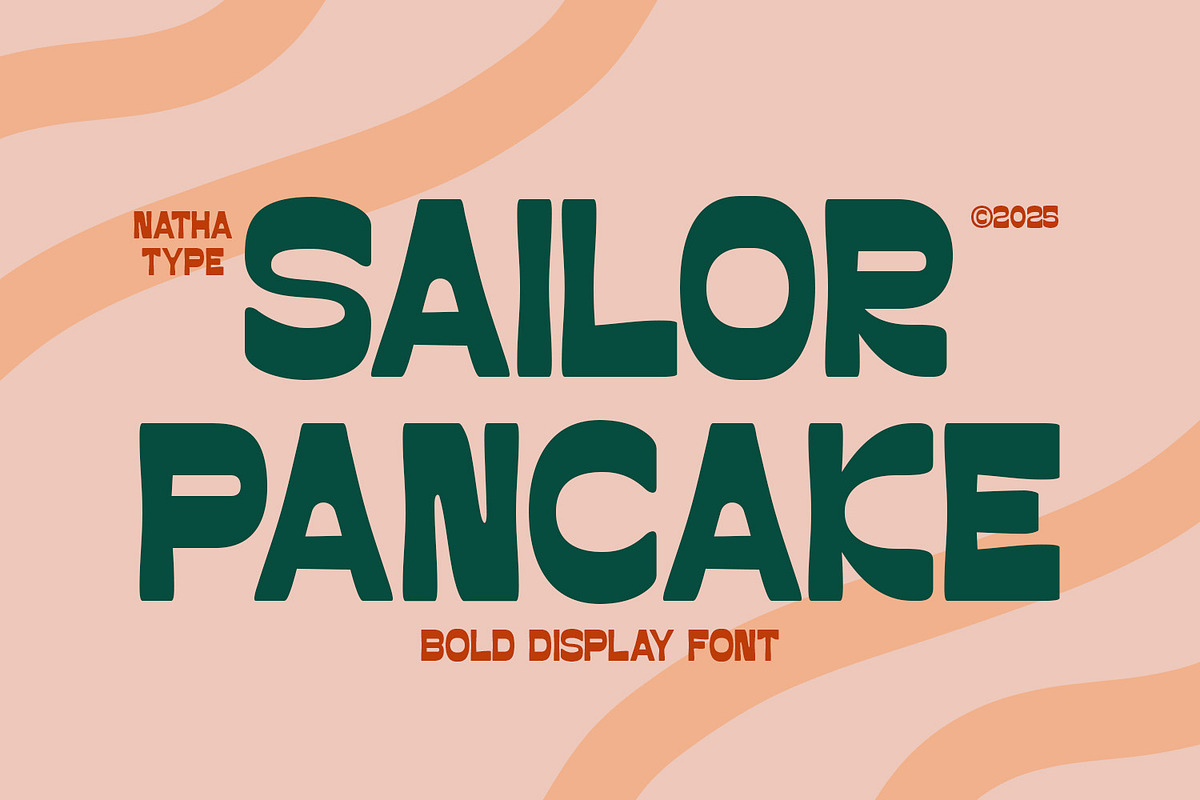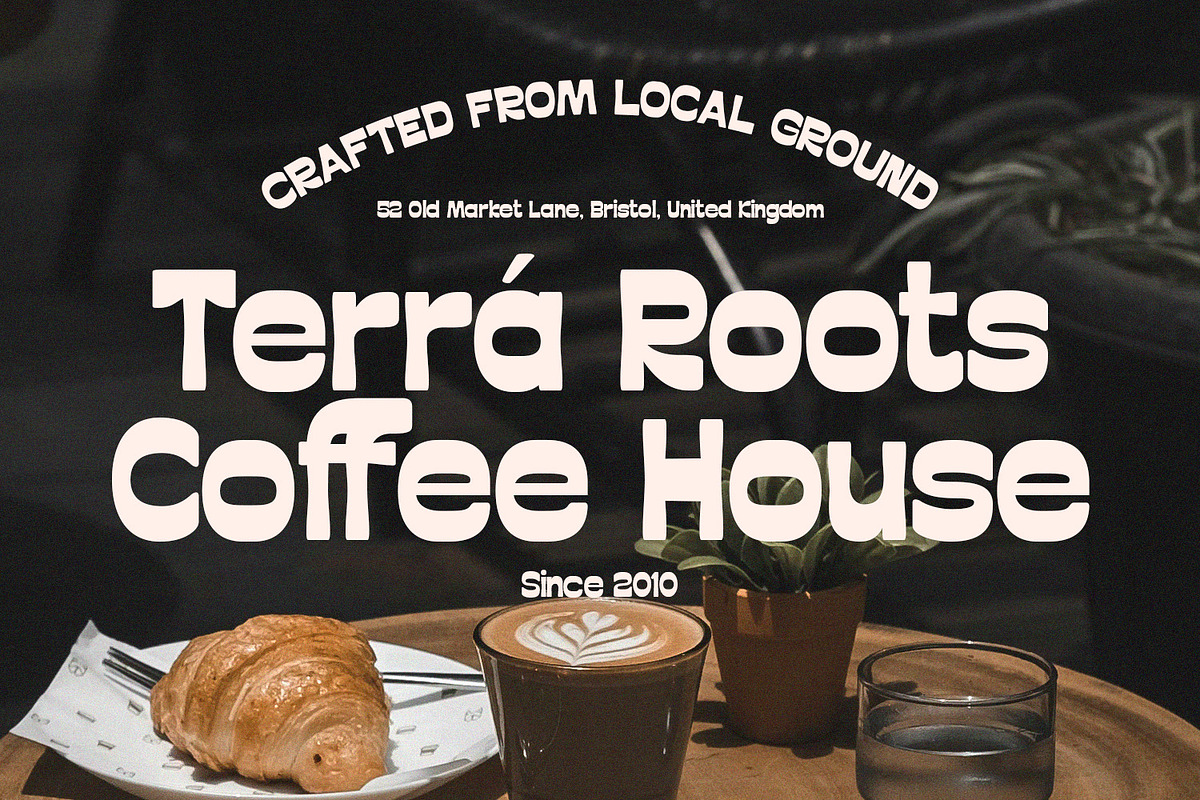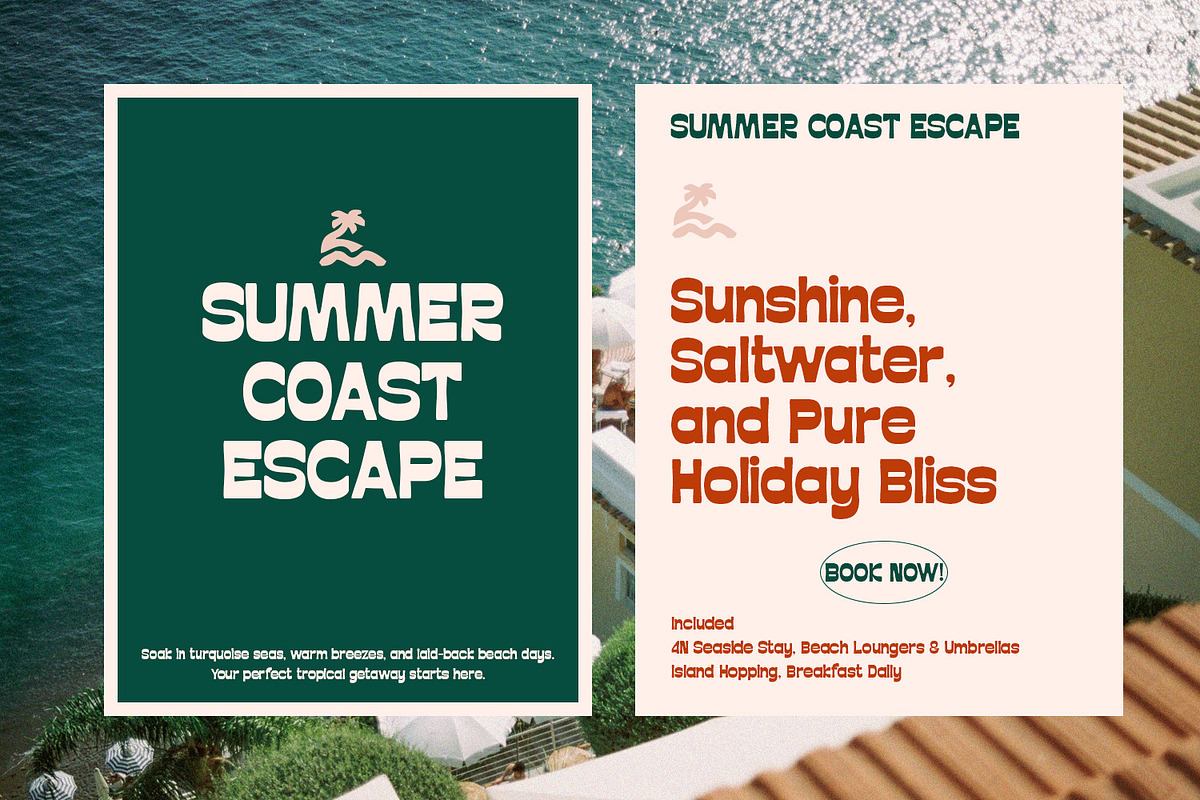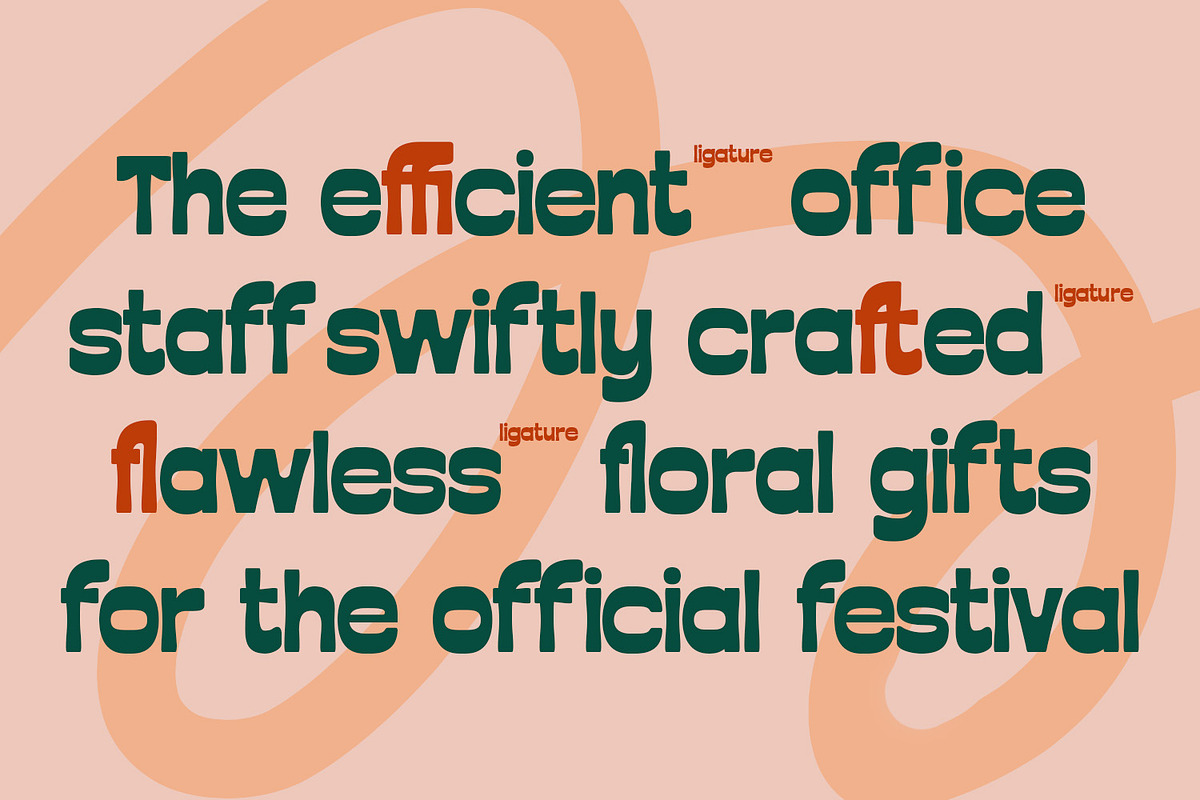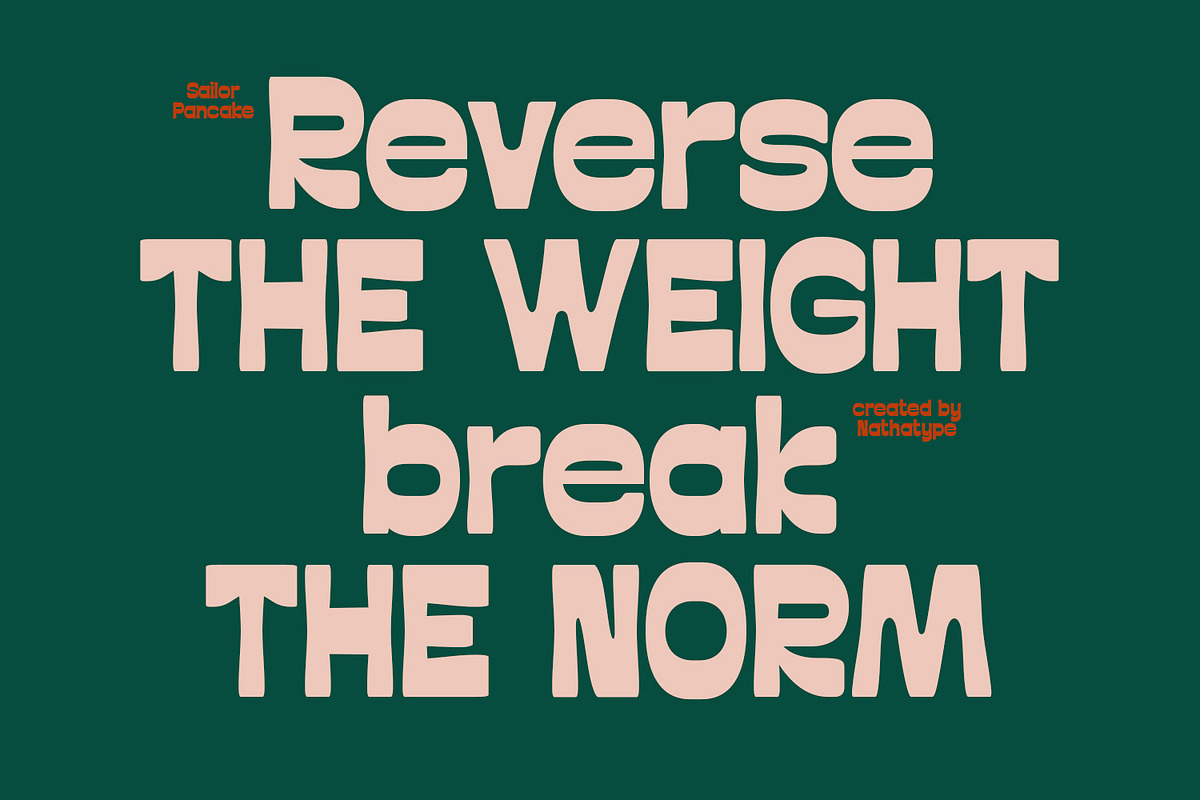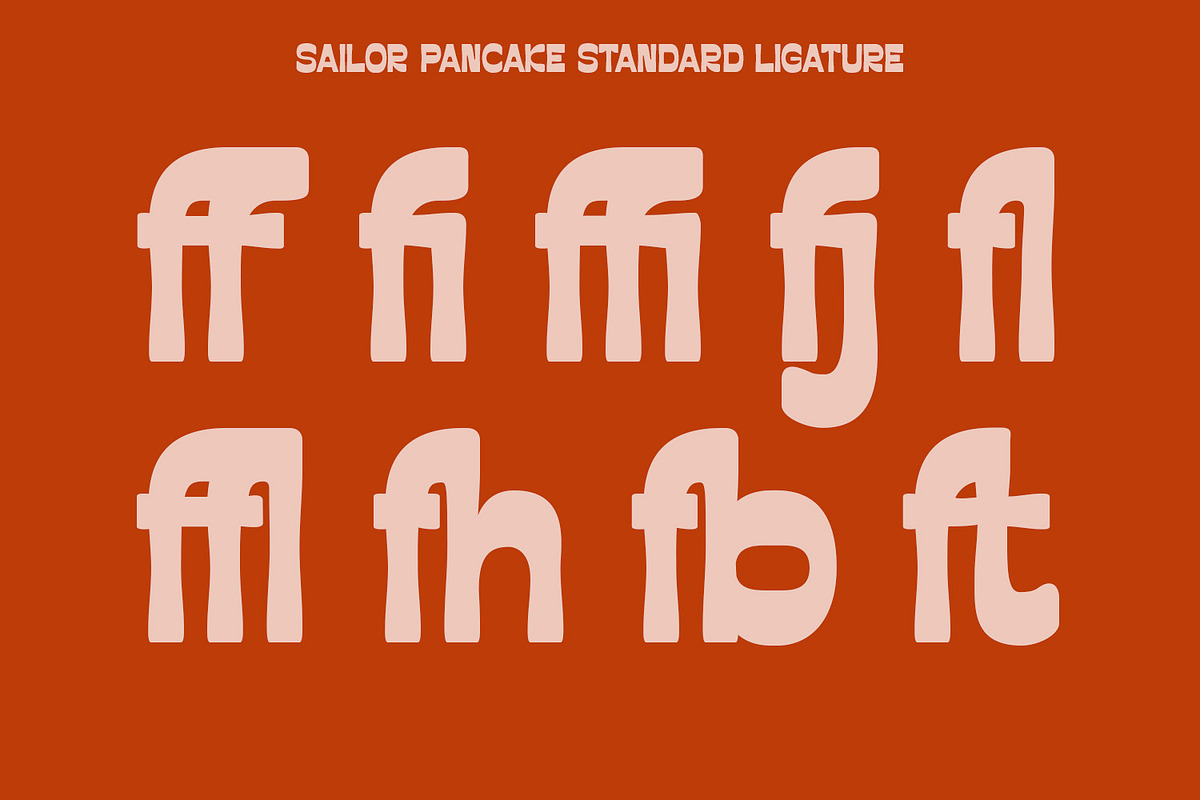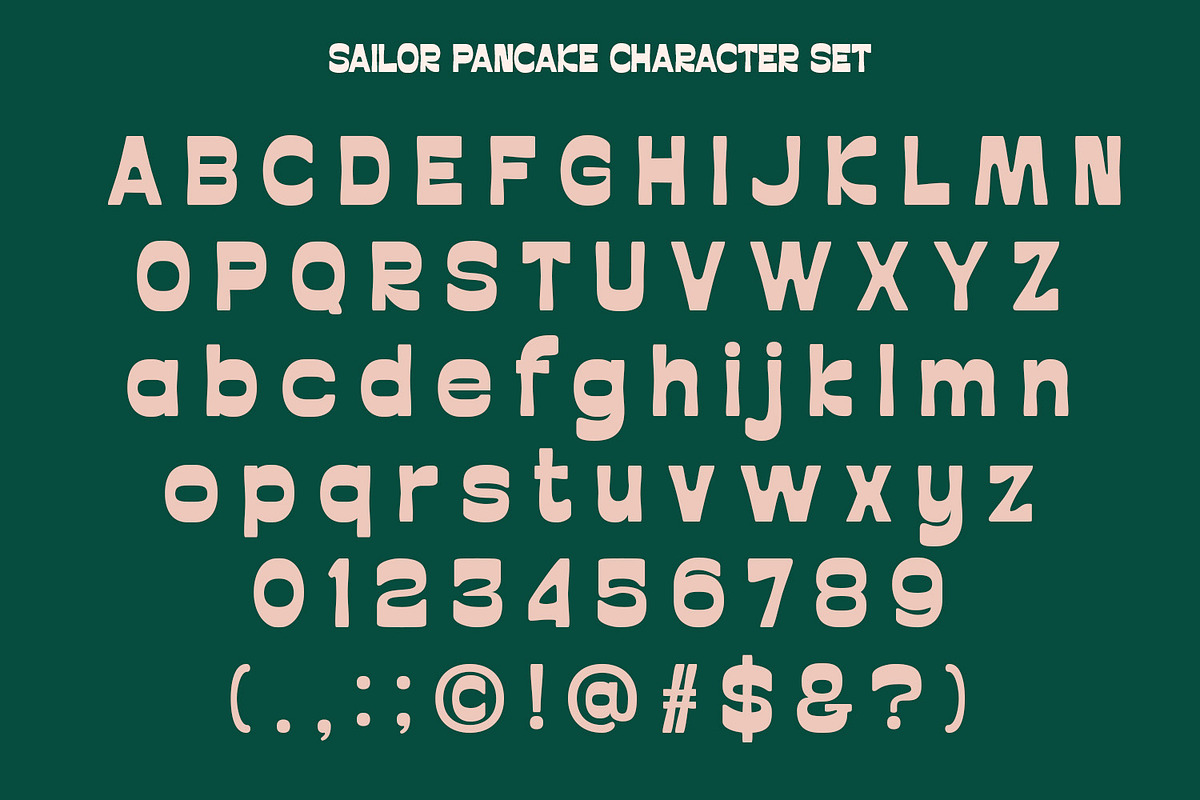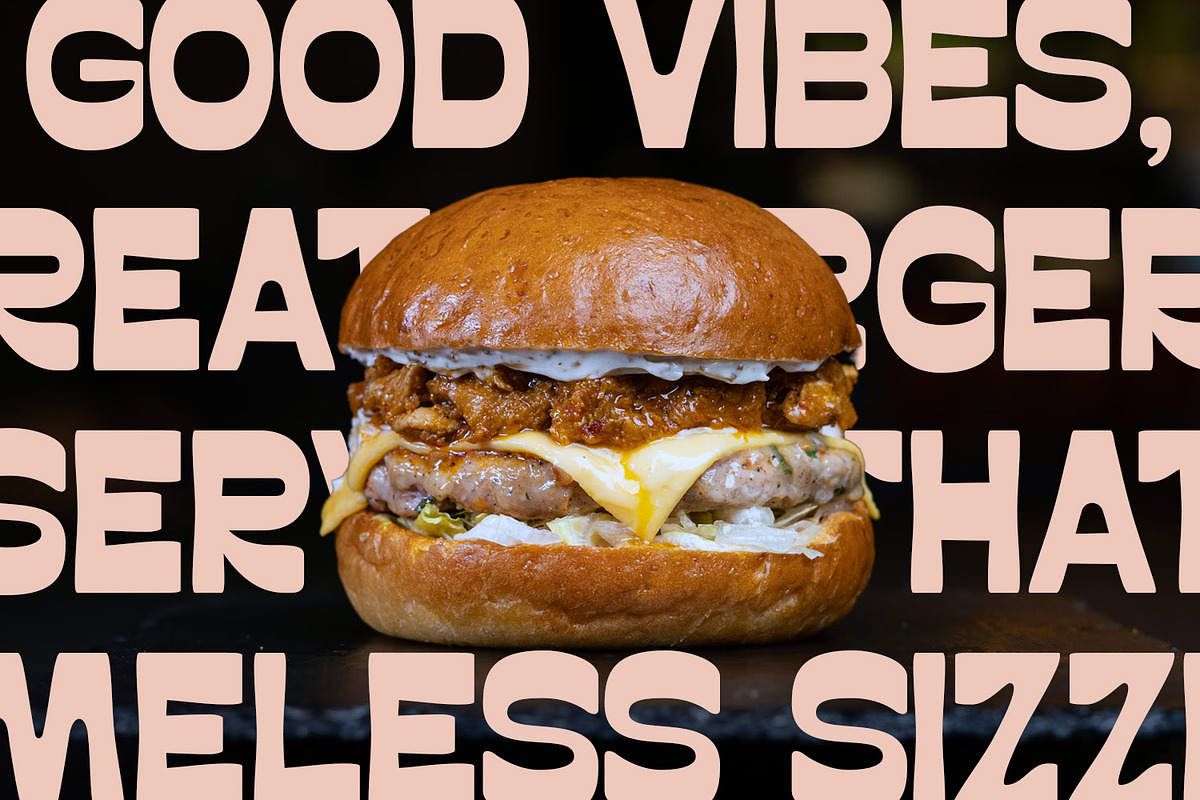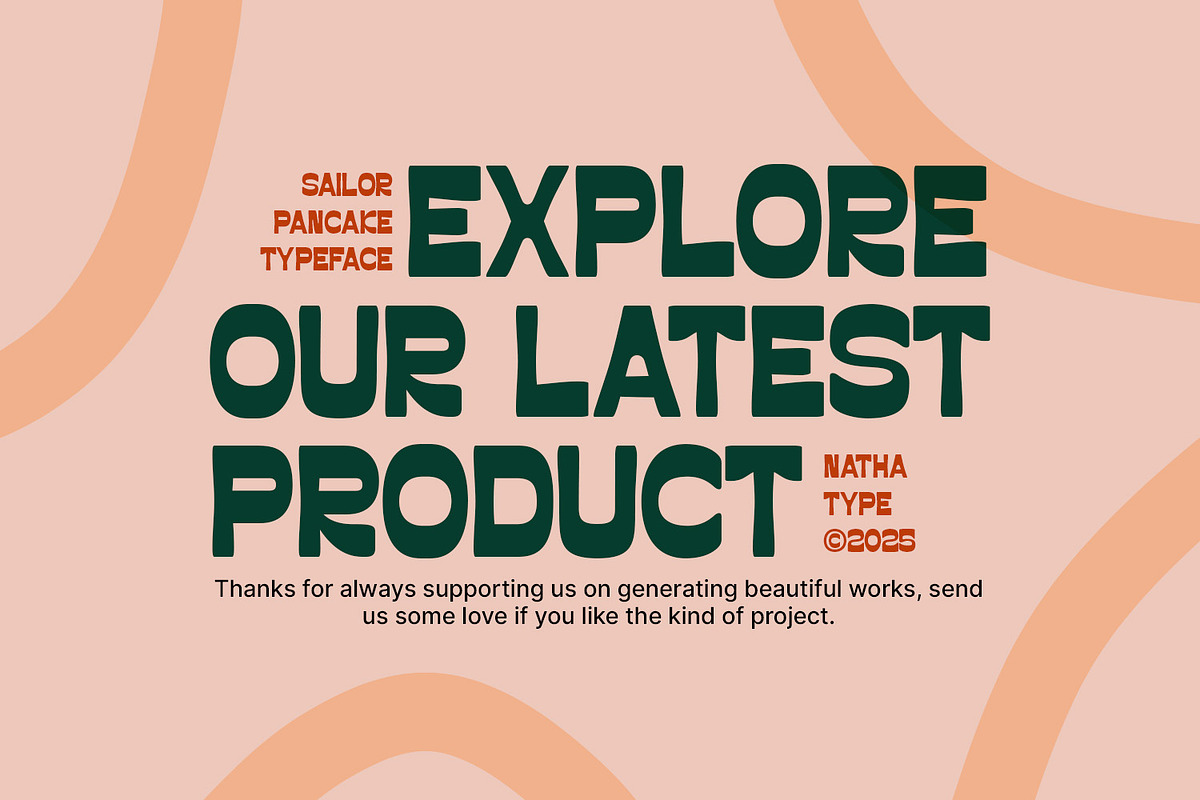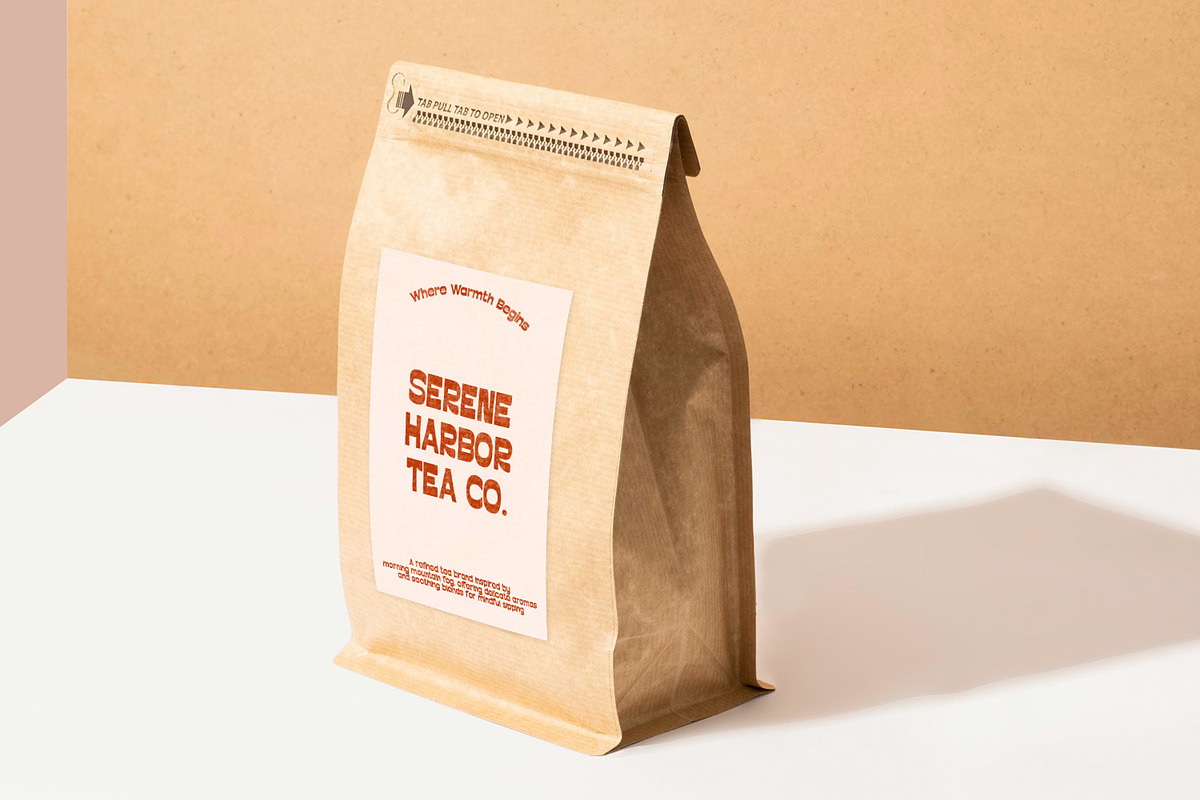
Sailor Pancake
Sailor Pancake is a distinctive display font designed to balance bold visual impact with a warm, friendly personality. Crafted with a bold weight, clearly visible contrast, and softly angled letterforms, this font delivers strong presence while maintaining a gentle, approachable impression. It’s the perfect choice for designers who want eye-catching typography that still feels smooth, playful, and inviting. In addition, enjoy the features here.
Sailor Pancake fits in logos, quotes, branding, posters, and many more designs. Find out more ways to use this font by taking a look at the font preview.